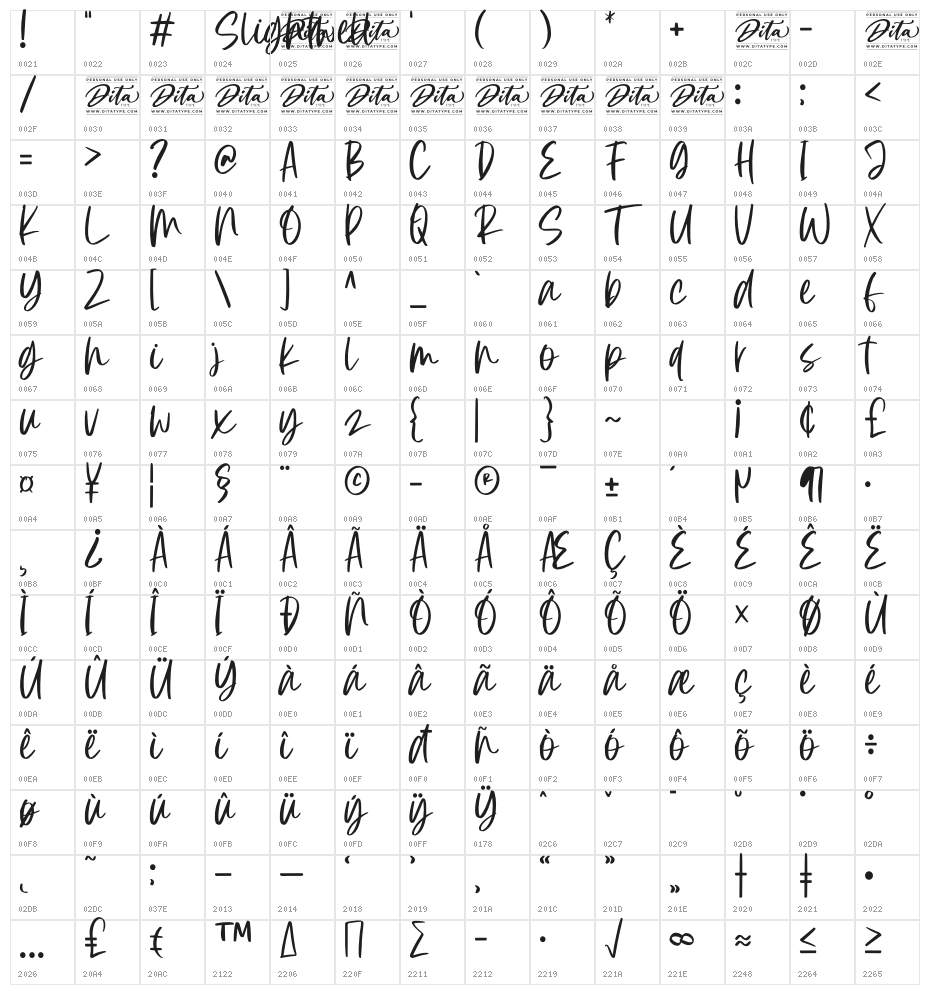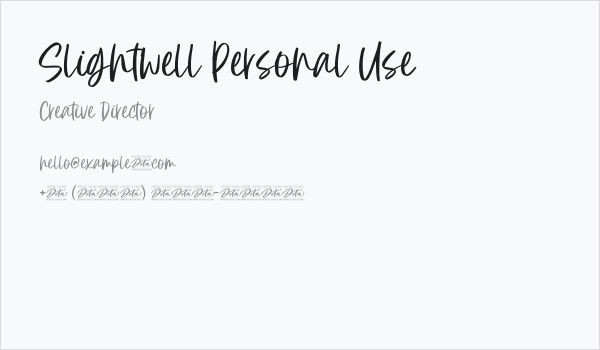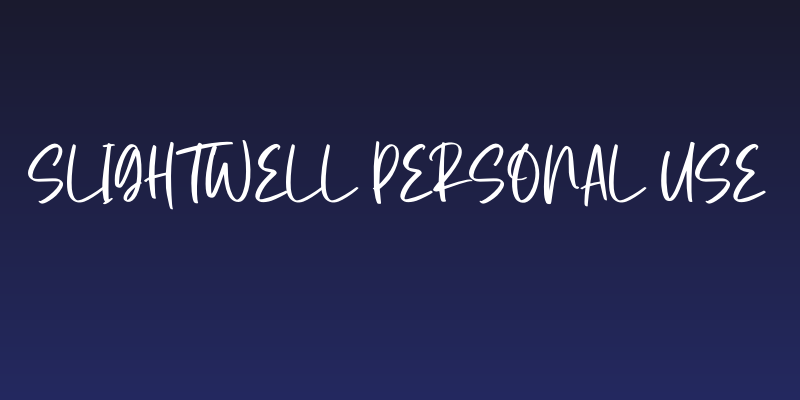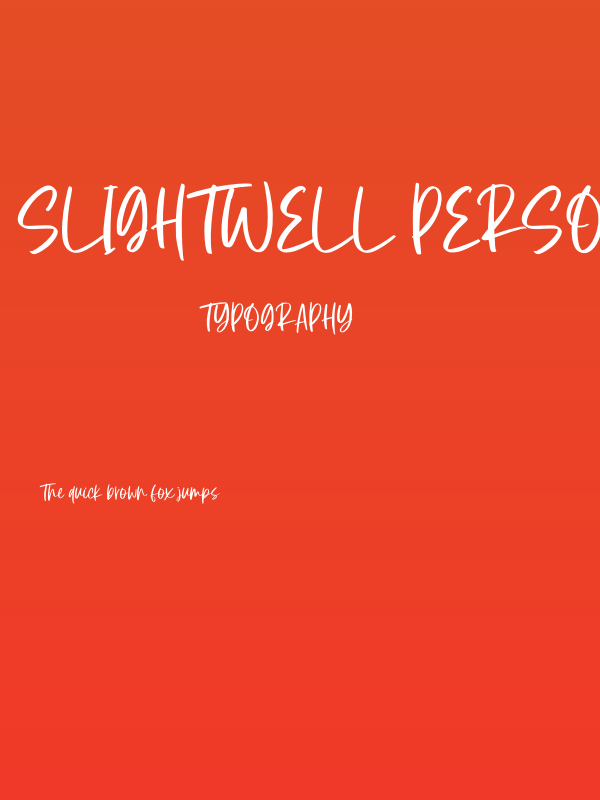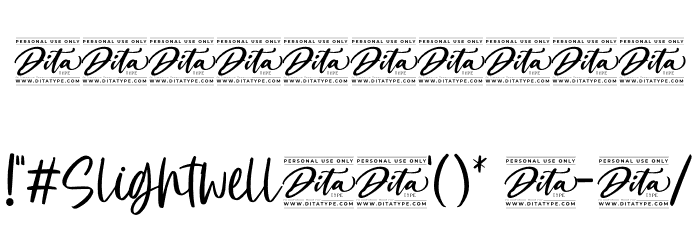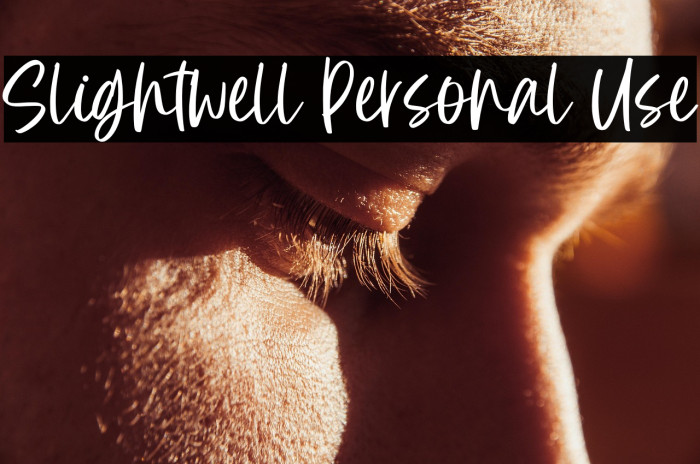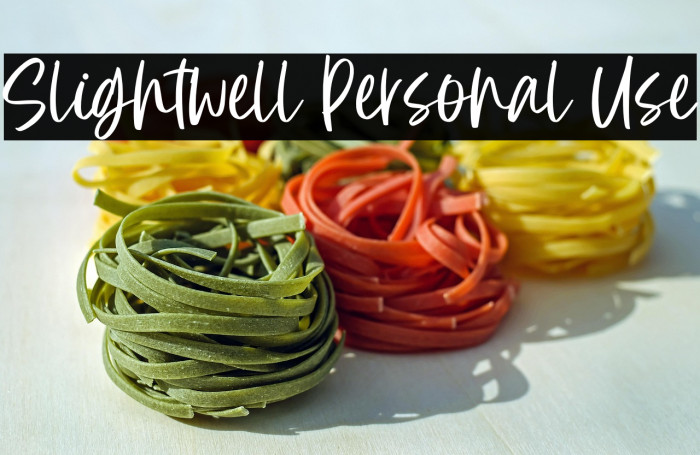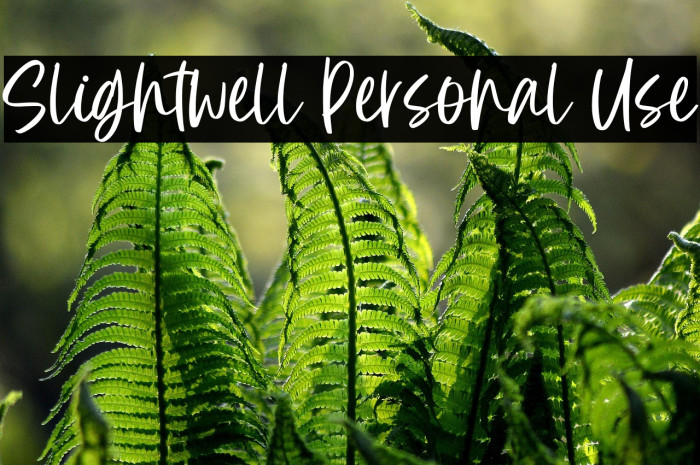
Slightwell Personal Use Font
Slightwell Personal Use Description
This font features a lively and dynamic handwritten style, characterized by its fluid strokes and playful curves. The letters are slightly slanted, adding a sense of motion and energy. The uppercase and lowercase characters maintain a consistent style, with some letters featuring unique flourishes that enhance its artistic appeal. The numbers and special characters are crafted with the same attention to detail, ensuring a cohesive look across all glyphs. This font's bold and expressive nature makes it ideal for projects that require a personal and creative touch.